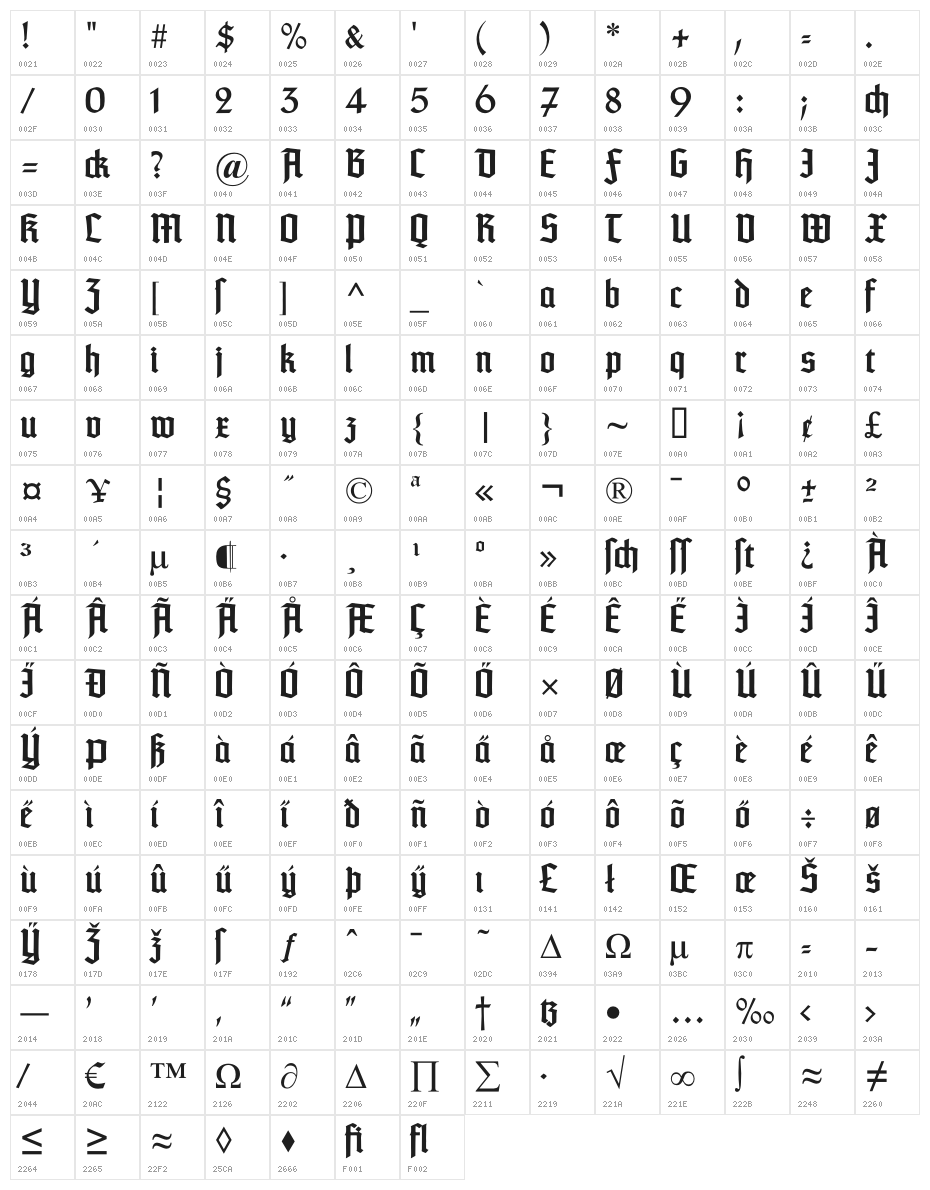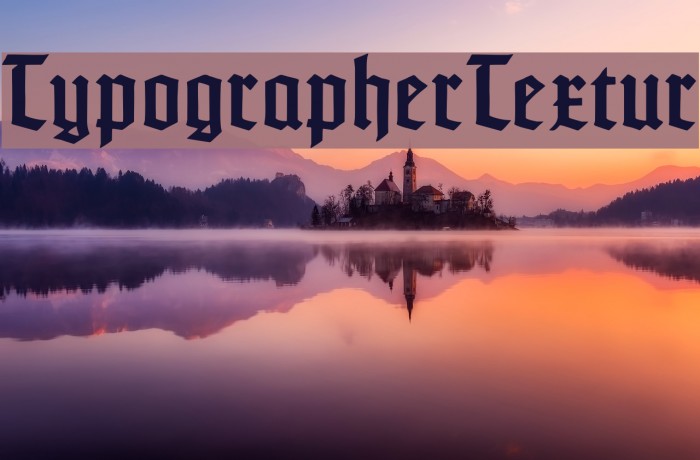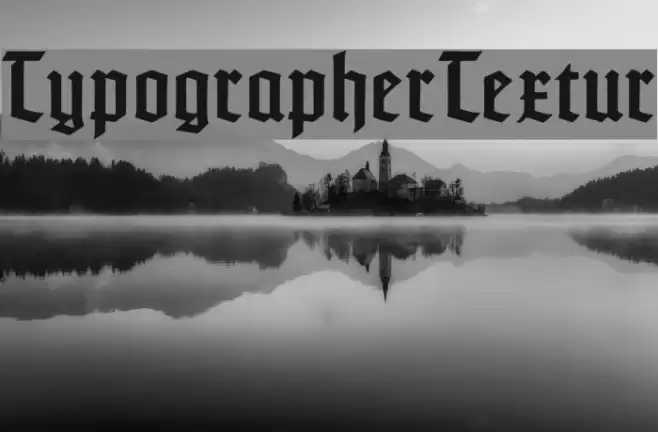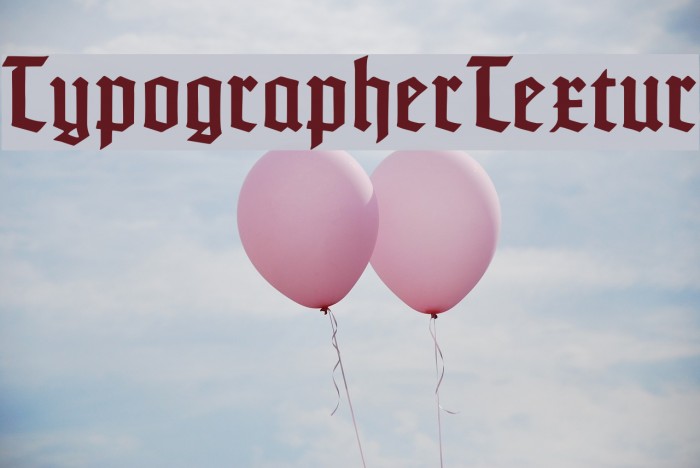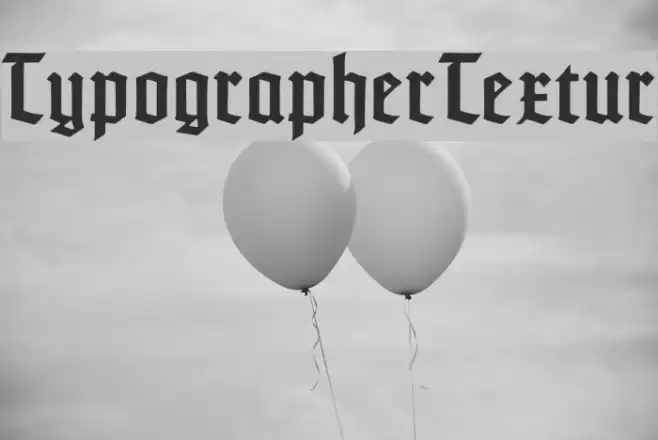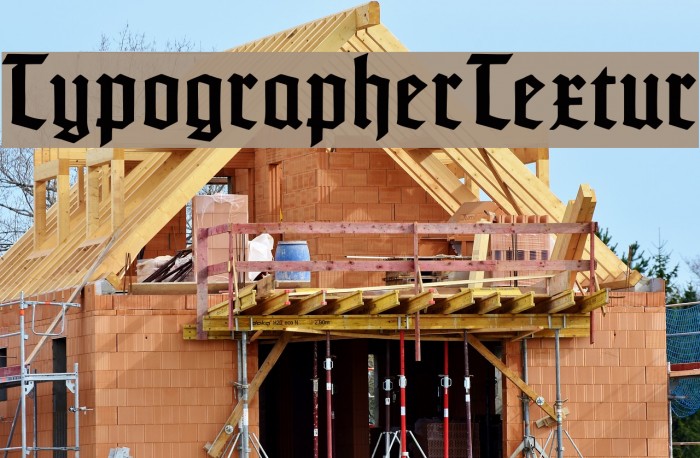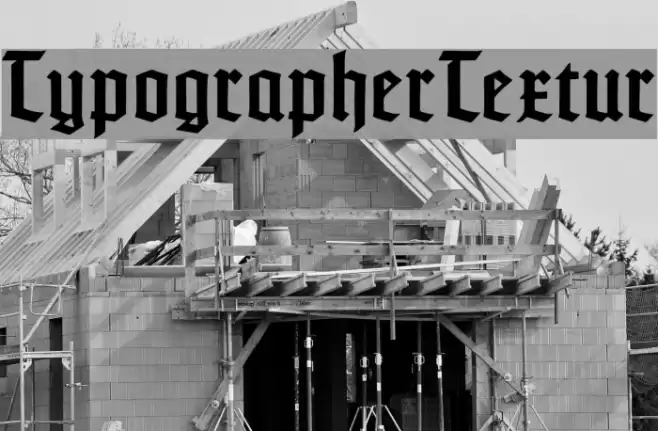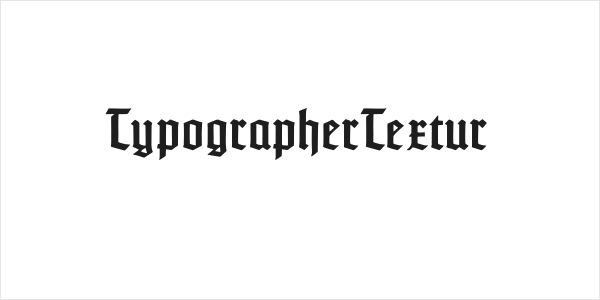
TypographerTextur Font
TypographerTextur Description
This font exhibits a classic blackletter style, characterized by its sharp, angular lines and ornate detailing. The uppercase letters are tall and narrow, with dramatic flourishes that give them a gothic appearance. The lowercase letters maintain the same intricate design, ensuring consistency throughout the typeface. The numerals are bold and distinct, matching the overall aesthetic of the alphabet. Special characters are equally stylized, adding to the font's decorative appeal. This typeface is reminiscent of medieval script, often used in historical or formal contexts.
| Use Case | Headlines, Logos, Decorative text |
| Proposed Projects | Ideal for projects requiring a historical or formal touch, such as invitations, certificates, or branding for vintage-themed products. |